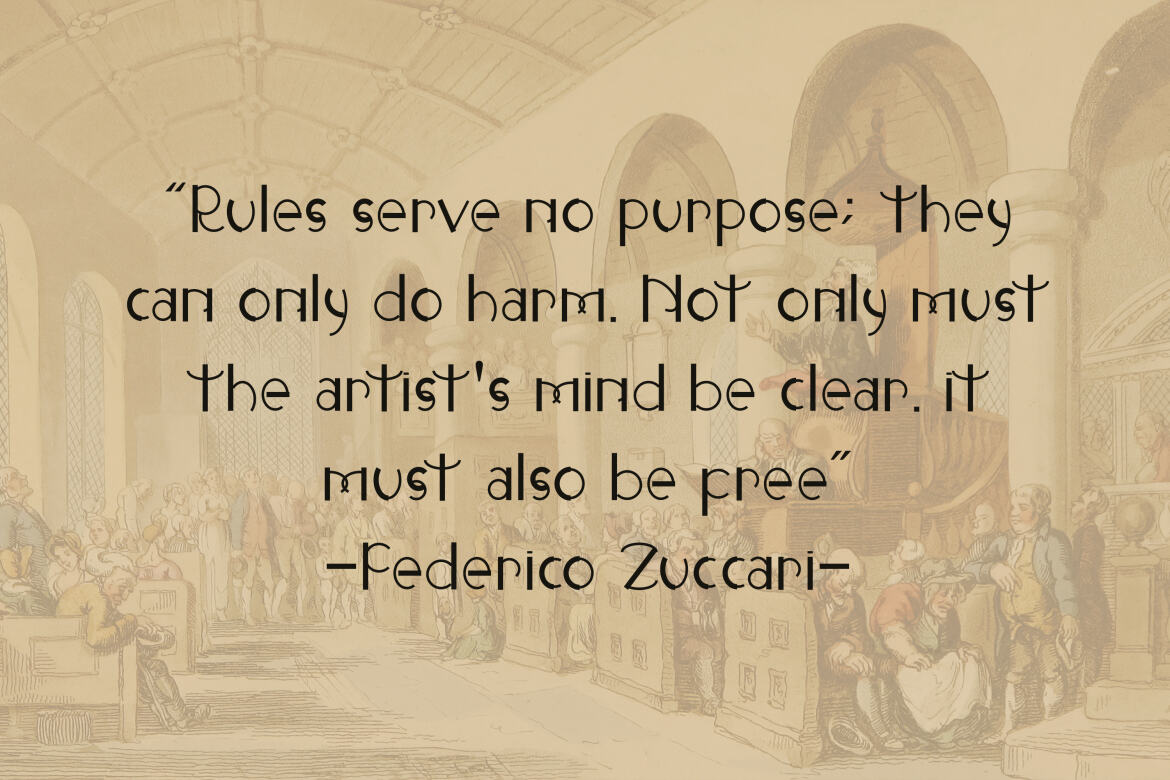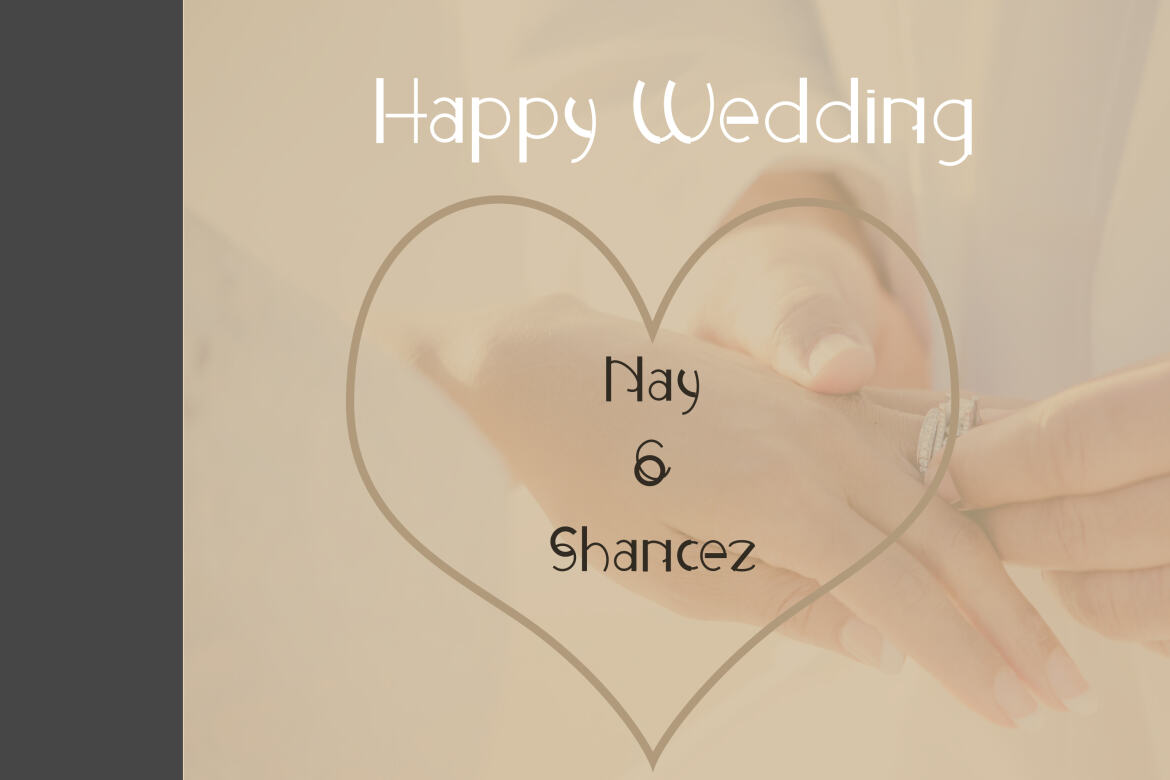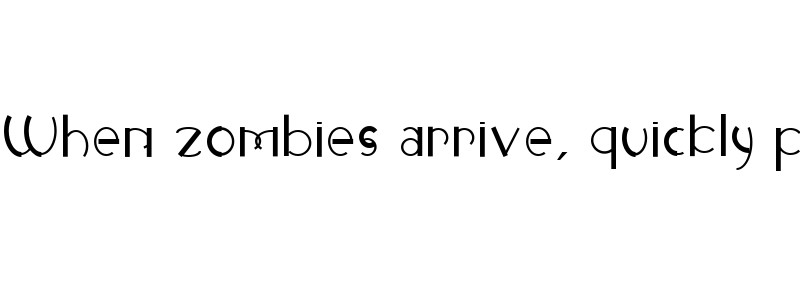
The Nayssance - Display Font
The Nayssance
The Nayssance is a cool and uniquely designed display font. This font is imposing and features uniquely shaped letters, and as a result, it will easily match a wide range of creations that require a distinct touch.
• his font is imposing and features uniquely shaped letters, and as a result
• it will easily match a wide range of creations that require a distinct touch.